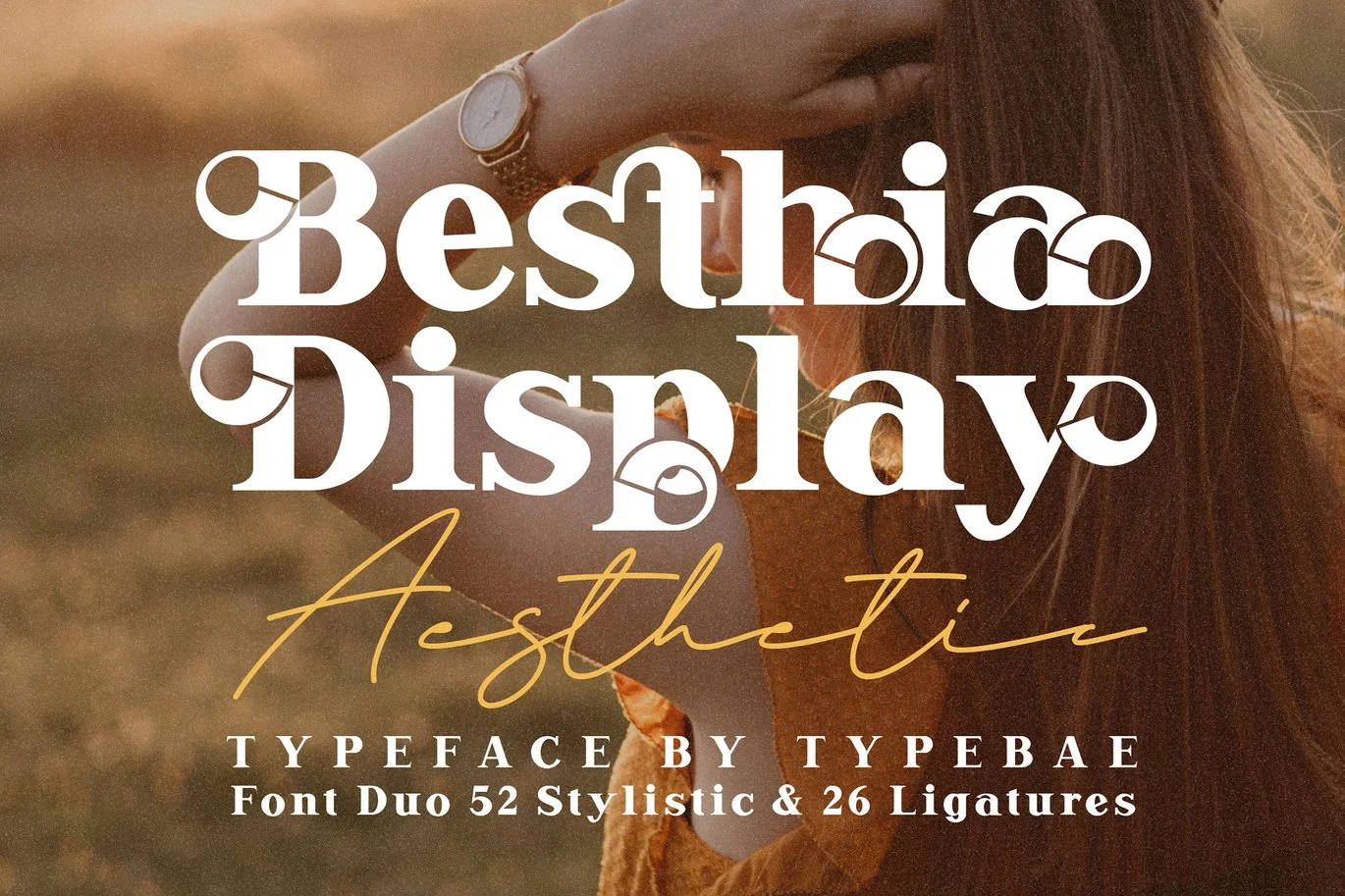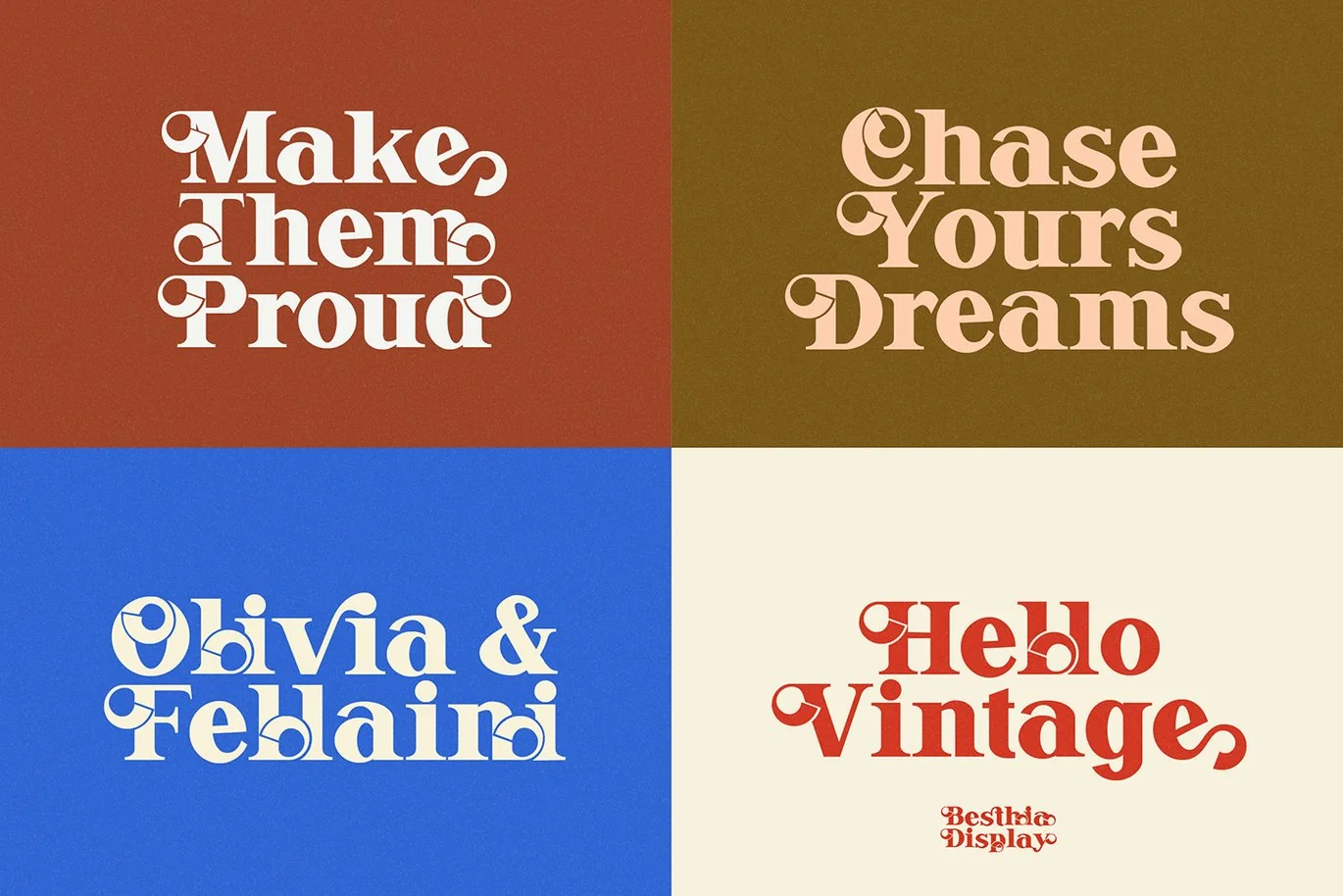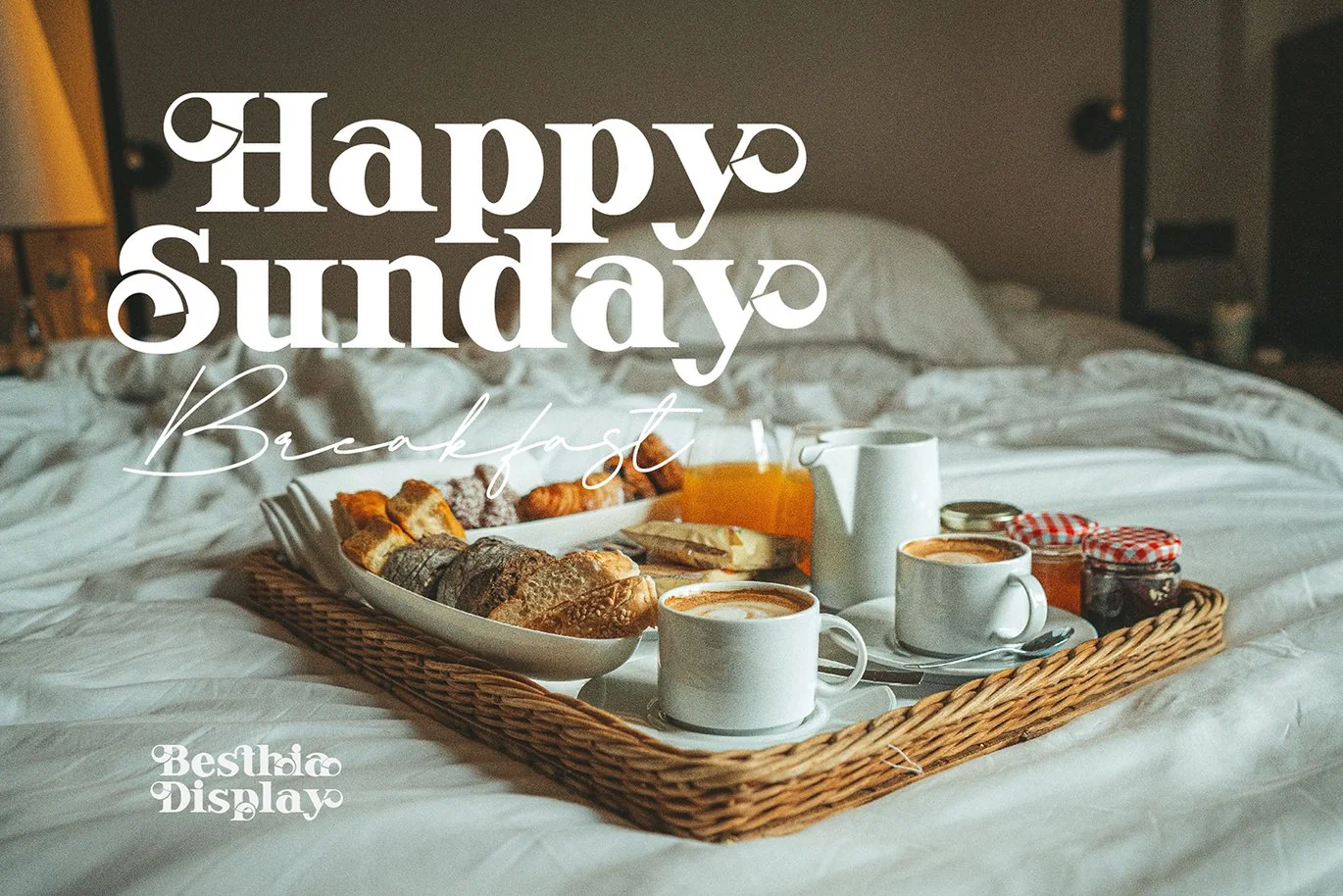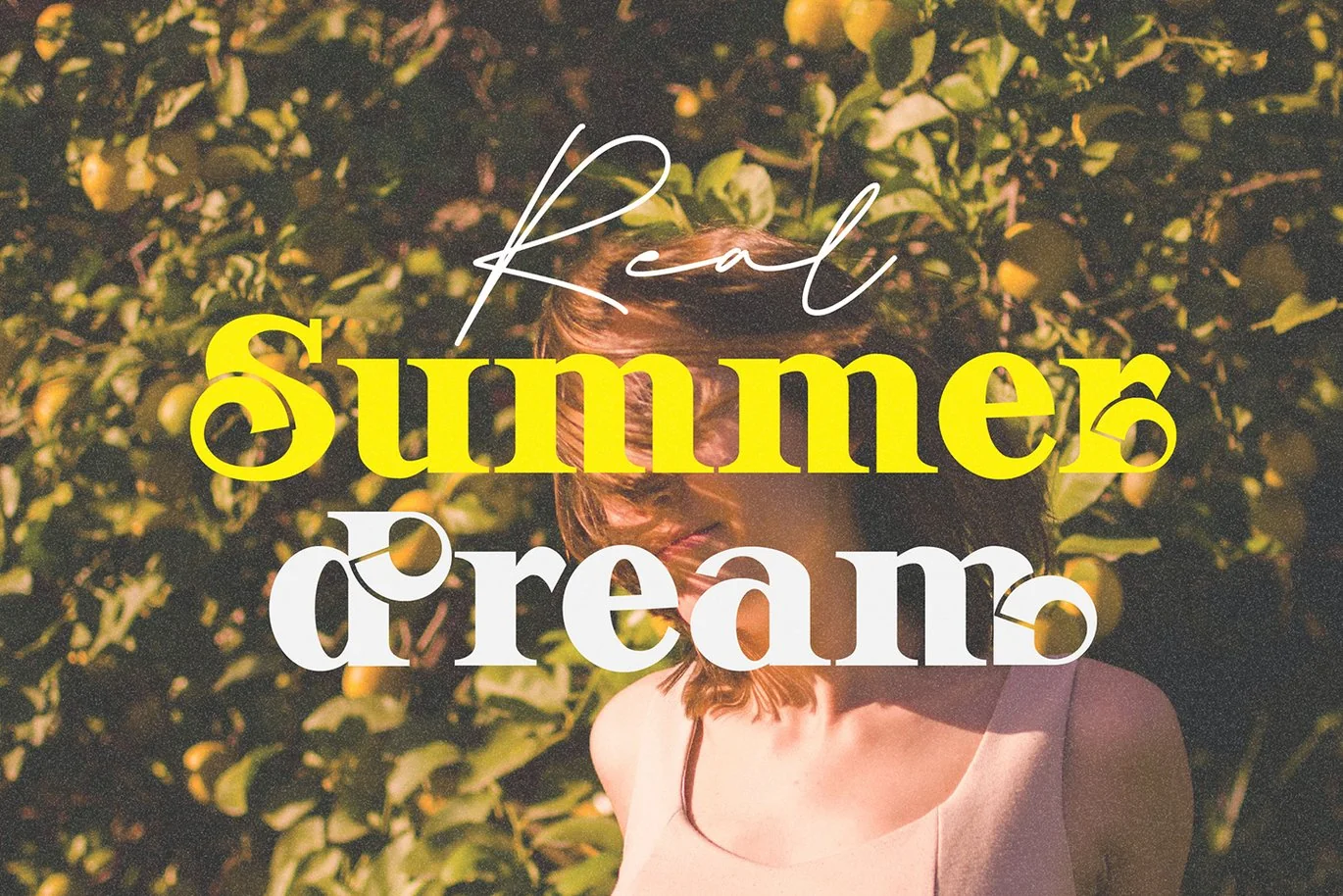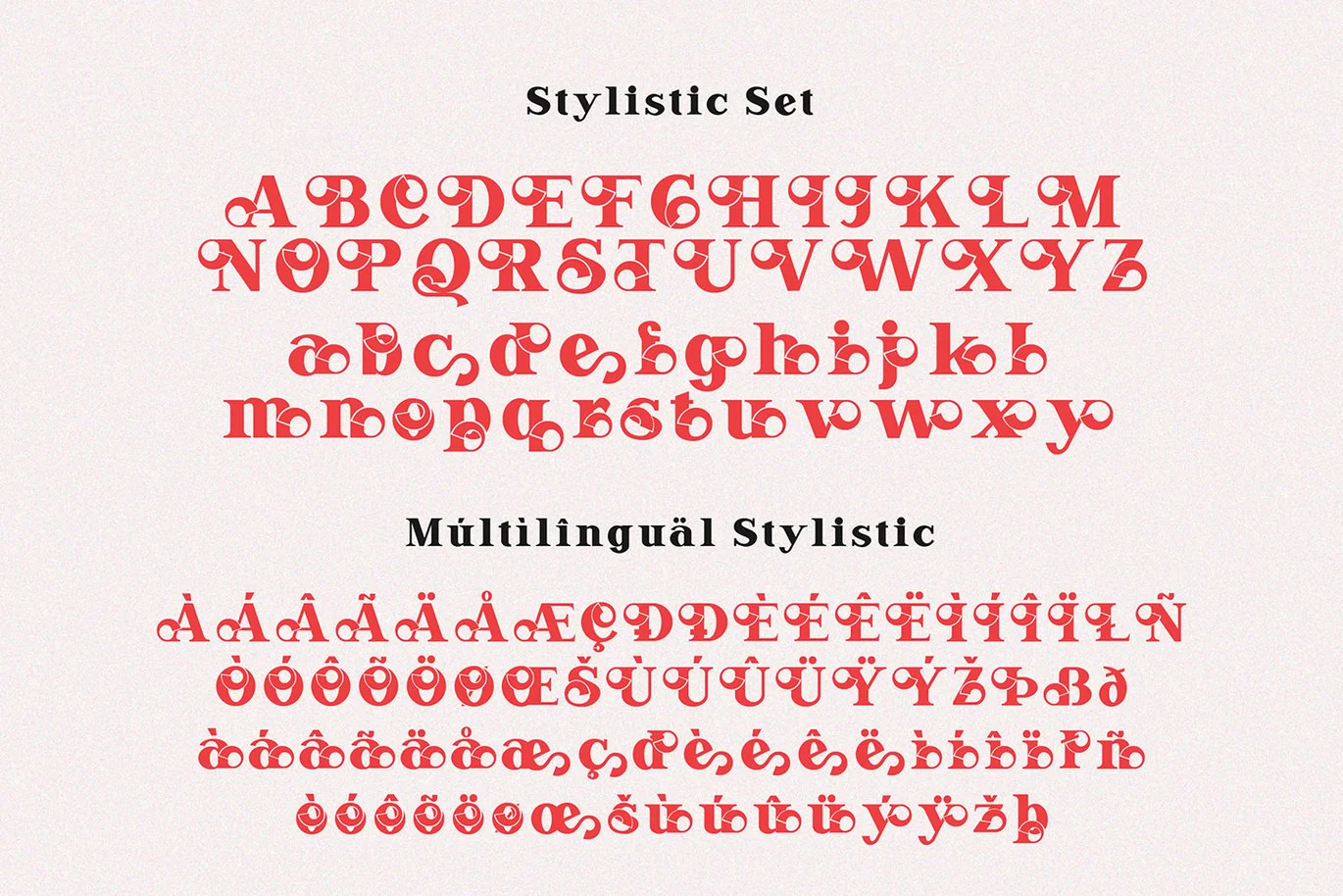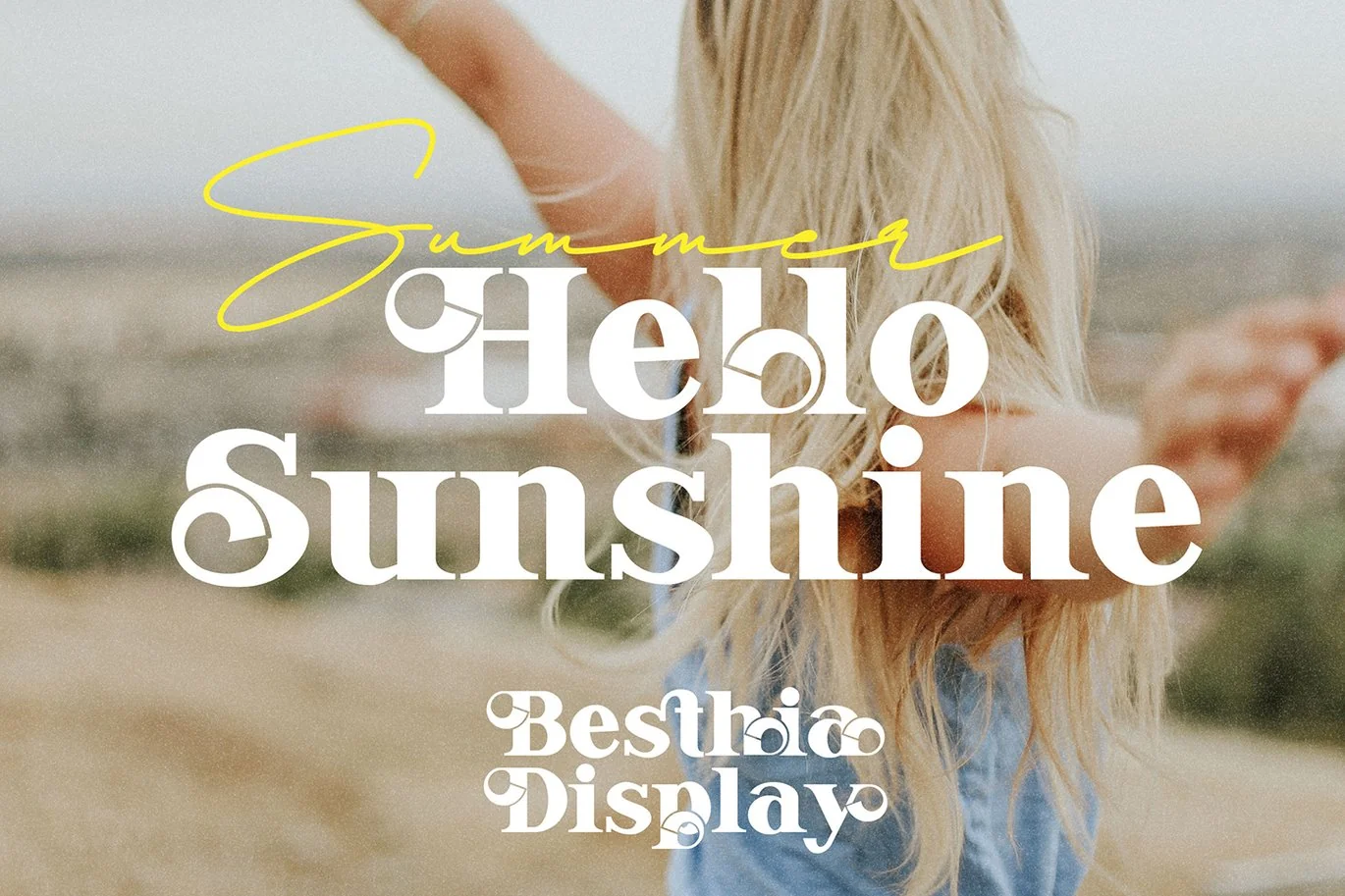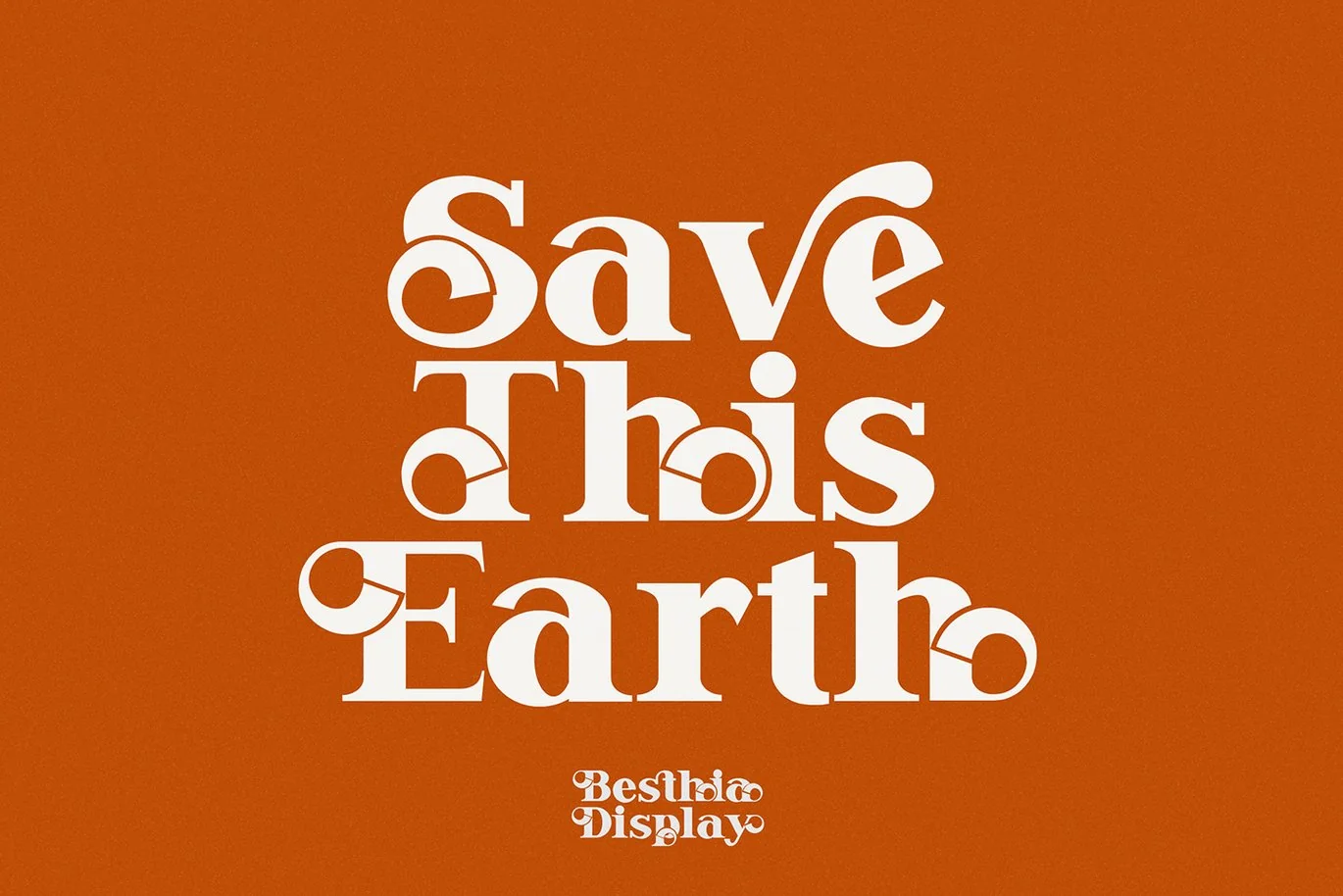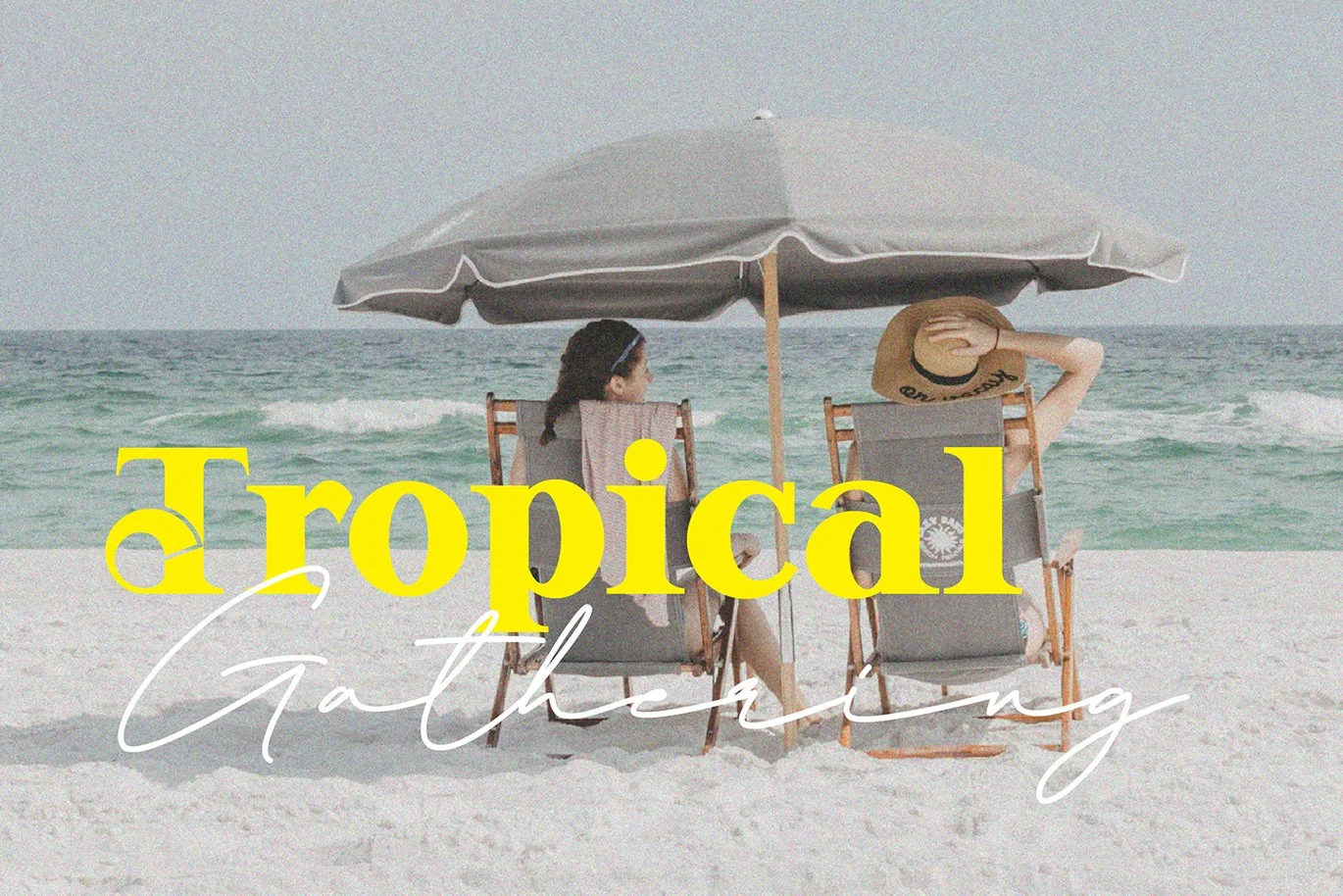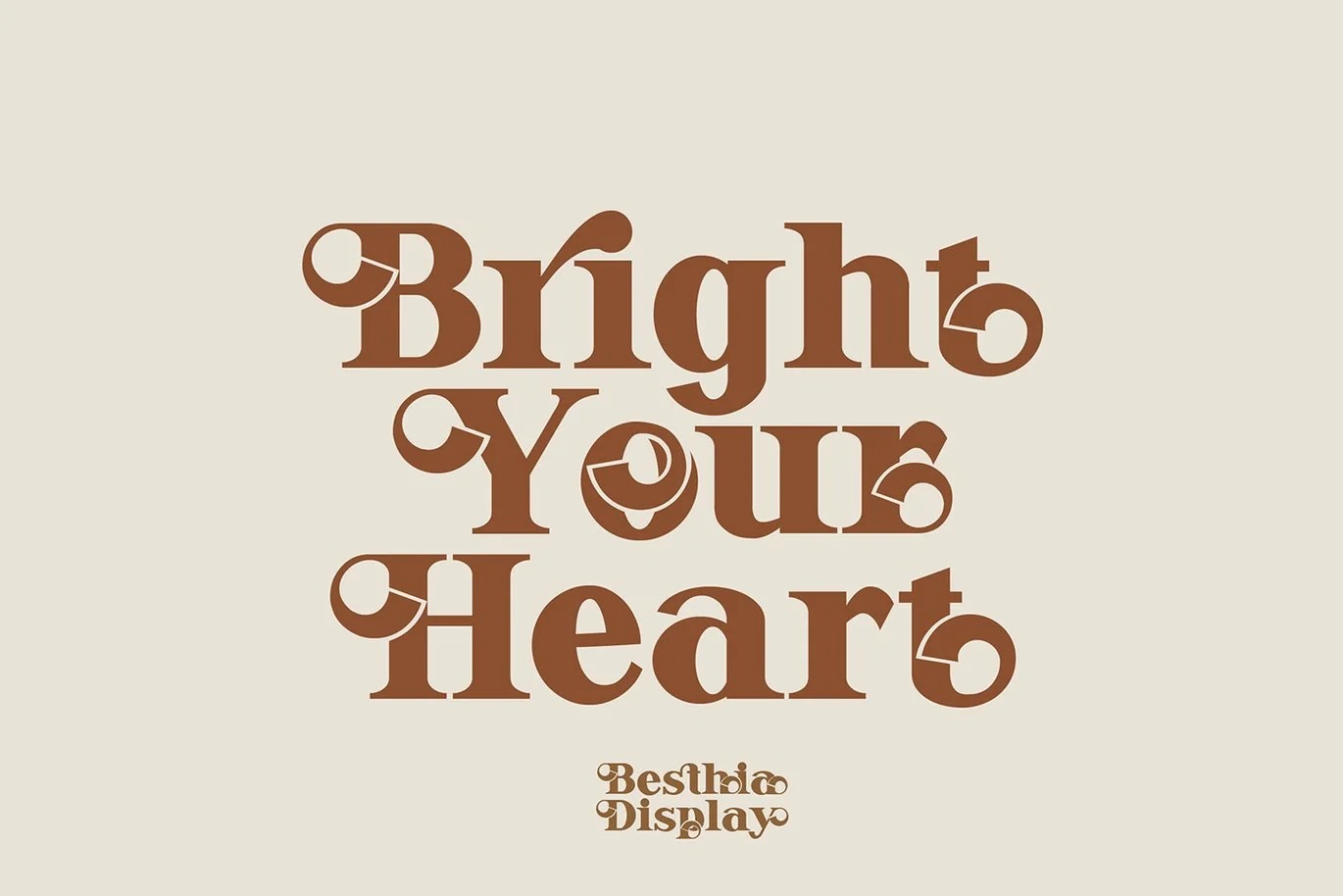
Besthia Display Font Duo
Besthia Display is a stylish vintage font vibe with a touch of modernity. It looks amazing at display sizes and is easily readable in text size. Besthia Display comes with access to your OpenType features, large selection of stylistic alternate glyphs and ligatures.
Features: Multilingual, Ligatures, Stylistic Alternates & PUA encoded
Besthia Display is a display font made mainly for headlines, titles, and other short texts and is well-suited for advertising, vintage mood board, branding, logotypes, packaging, titles, editorial design and modern and vintage design.